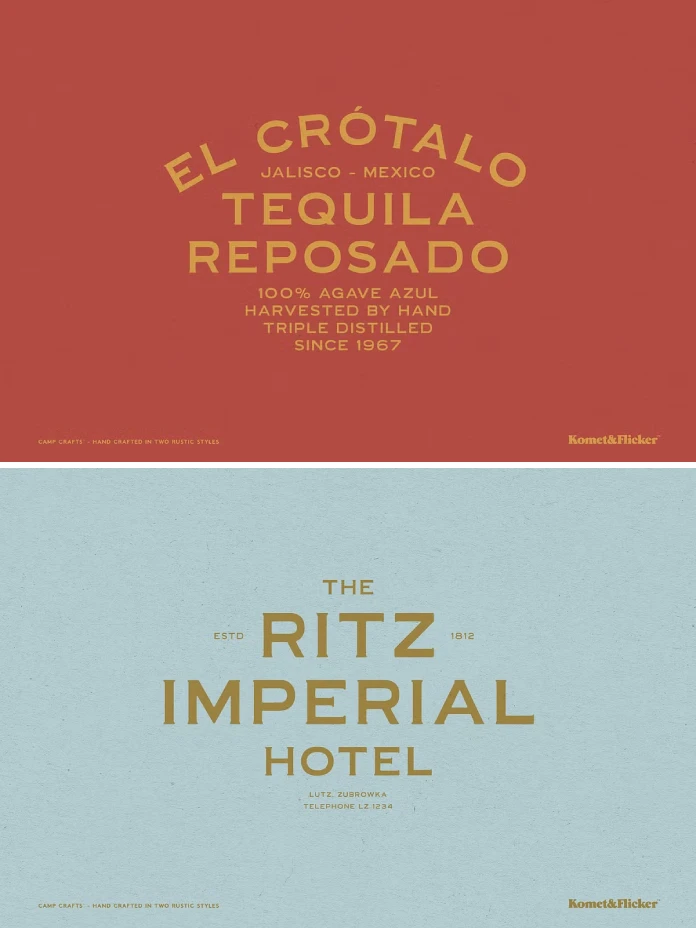
Camp Crafts is a two-style font system built around the visual language of old trailhead signs and campground markers. It ships in a sans and a serif version, both sharing the same rustic bones but wearing different jackets. The serif leans toward carved-wood-sign energy. The sans reads more like stenciled metal plaque lettering. Together they’re pitched as a “duo,” meaning the whole point is pairing them, not picking one and ignoring the other.
Both styles include a full A to Z character set in upper and lowercase, selected European accented characters, two styles of pre-made fractions, numbers, punctuation, and a handful of symbols. That’s a fairly complete package for a display-leaning font, and it matters, because a lot of “vintage” typefaces skip lowercase entirely and leave you stuck.
The Connector Glyph System: The Real Differentiator
Here’s the feature that actually separates Camp Crafts from the pile of similar rustic vintage/retro fonts crowding font marketplaces right now. It includes 12 custom connector word glyphs, in both styles, designed to link words together the way hand-painted signage often does. Think “&” replaced with a small painted flourish, or “the” rendered as a compact connective mark instead of three separate letters.
I’d call this the font’s Signage Continuity System, my own term for it, because that’s functionally what it’s doing. Most script or display fonts give you a single ligature or two and call it a day. Camp Crafts gives you a whole vocabulary of connective marks meant to be swapped in wherever a real sign painter would have used shorthand. Once you find them in the Glyphs panel, they change how a headline reads. “Camp & Cabin” stops looking like typed text and starts looking like something someone actually painted on a board.
How Does Camp Crafts Perform in Real Layouts?
I tested Camp Crafts across three formats: a poster headline, a paragraph of body copy, and a small badge-style logo mark. Results varied more than I expected.
Headlines and Display Use
This is where Camp Crafts earns its keep. At large sizes, the worn edges and slightly imperfect letterforms give it real character. It doesn’t look like a font trying to look distressed. It looks like a sign that’s actually weathered a few winters. For posters, product packaging, and campground branding, both styles hold up.
Body Copy: Proceed With Caution
Rustic display fonts rarely work as paragraph text, and Camp Crafts is no exception. Below roughly 14 points, the texture that makes it charming at large sizes starts fighting with legibility. I’d keep it strictly to headlines, subheadings, and short callouts. Pair it with a plain, quiet sans-serif for your paragraphs. Don’t ask this font to do a job it wasn’t built for.
Small Badge and Logo Work
Surprisingly solid. The Sans style in particular compresses well into a badge or seal layout, which makes sense given its inspiration source. If you’re building a campground logo, a farmers market badge, or a small-batch product label, this is where the font quietly shines.
Camp Crafts Serif vs. Sans: Which Should You Actually Use?
People assume “duo” fonts are interchangeable. They’re not, and Camp Crafts makes that clear fast.
The Serif version carries more historical weight. It reads older, more carved, and more permanent. Use it when you want something to feel established, like it’s been there for decades even if your brand launched last month.
The Sans version feels more contemporary and a bit more flexible. It’s the one I’d reach for on a website, a modern product line, or anywhere the “rustic” theme needs to sit next to clean, current design elements without clashing.
My rule of thumb, call it the Weight-of-History Test: if your brand story leans on tradition and age, go serif. If your brand leans on the outdoor lifestyle but still wants to feel current, go sans.
Camp Crafts Font Duo: Quick Reference Table
| Feature | Camp Crafts Serif | Camp Crafts Sans |
|---|---|---|
| Best use case | Historical, established brand feel | Modern outdoor branding, badges, web headlines |
| Character set | Full A-Z upper/lowercase, European characters | Full A-Z upper/lowercase, European characters |
| Connector glyphs | 12 custom connector words |
| Fractions | Two pre-made fraction styles |
| Recommended sizing | Headlines, display, signage | Headlines, badges, short UI copy |
| Not recommended for | Long paragraph body text | Long paragraph body text |
What’s the difference between Camp Crafts Serif and Sans?
The serif style has a more carved, historical feel suited to brands leaning on tradition. The Sans style feels more modern and versatile, working well for contemporary outdoor branding and badge logos.
Is Camp Crafts good for logo design?
Yes, particularly for badge-style or seal-style logos, where their rustic texture and connector glyphs add authenticity without extra design work.